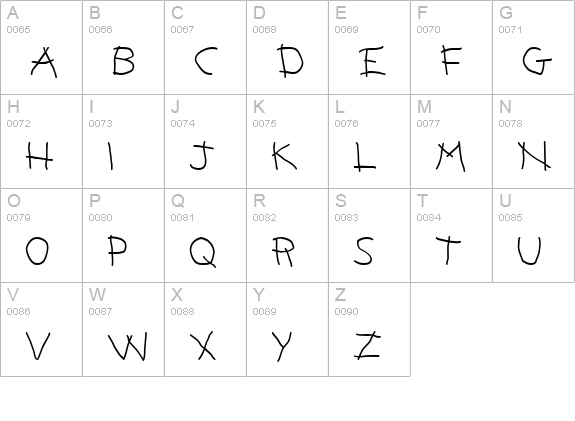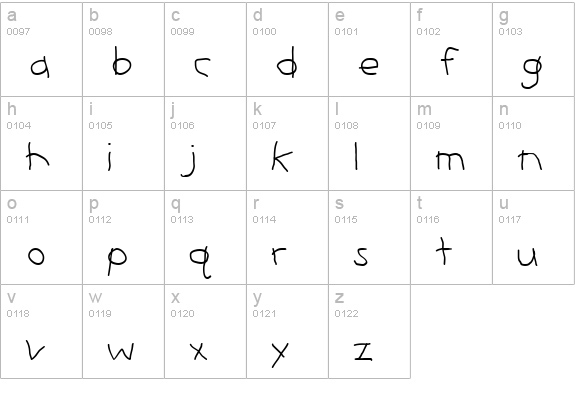
CK Child's Play Font Details
CK Child's Play font is a playful and whimsical typeface designed to bring a sense of fun and joy to your projects. With its charming handwritten style, this font is perfect for adding a touch of childlike innocence to your designs. Whether you're creating invitations, greeting cards, or posters, CK Child's Play font will help you convey a lighthearted and carefree message. The best part is that CK Child's Play font is available for free download at FontsMarket.com. You can easily access this delightful font and use it in your personal and commercial projects without any cost. Don't miss out on the opportunity to add a touch of playfulness to your designs with CK Child's Play font!